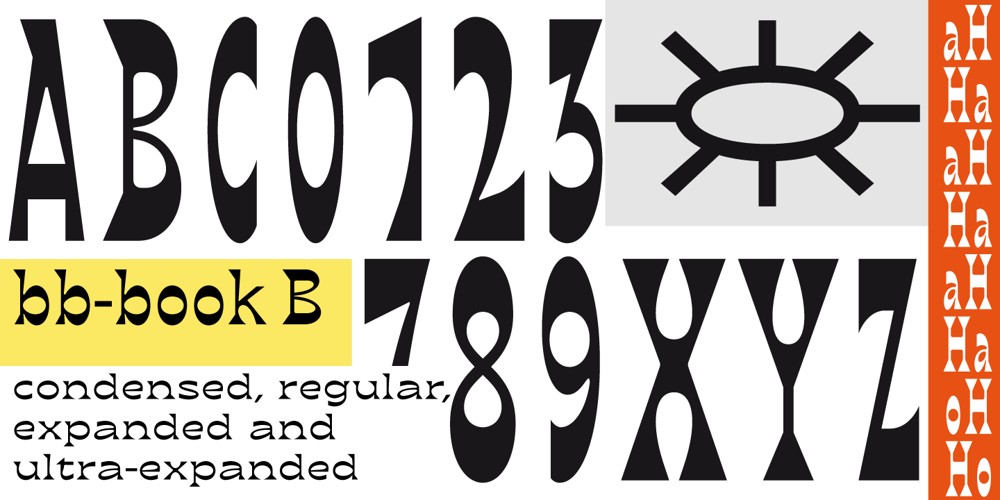
BB book B
BB book B Font Family was designed by Benoît Bodhuin and published by bb-bureau. BB book B contains 4 styles and family package options. A font family in continuation of the bb-book A, also kicking up weight, width and contrast, but upside down. 4 styles: condensed, regular, expanded and ultra-expanded.